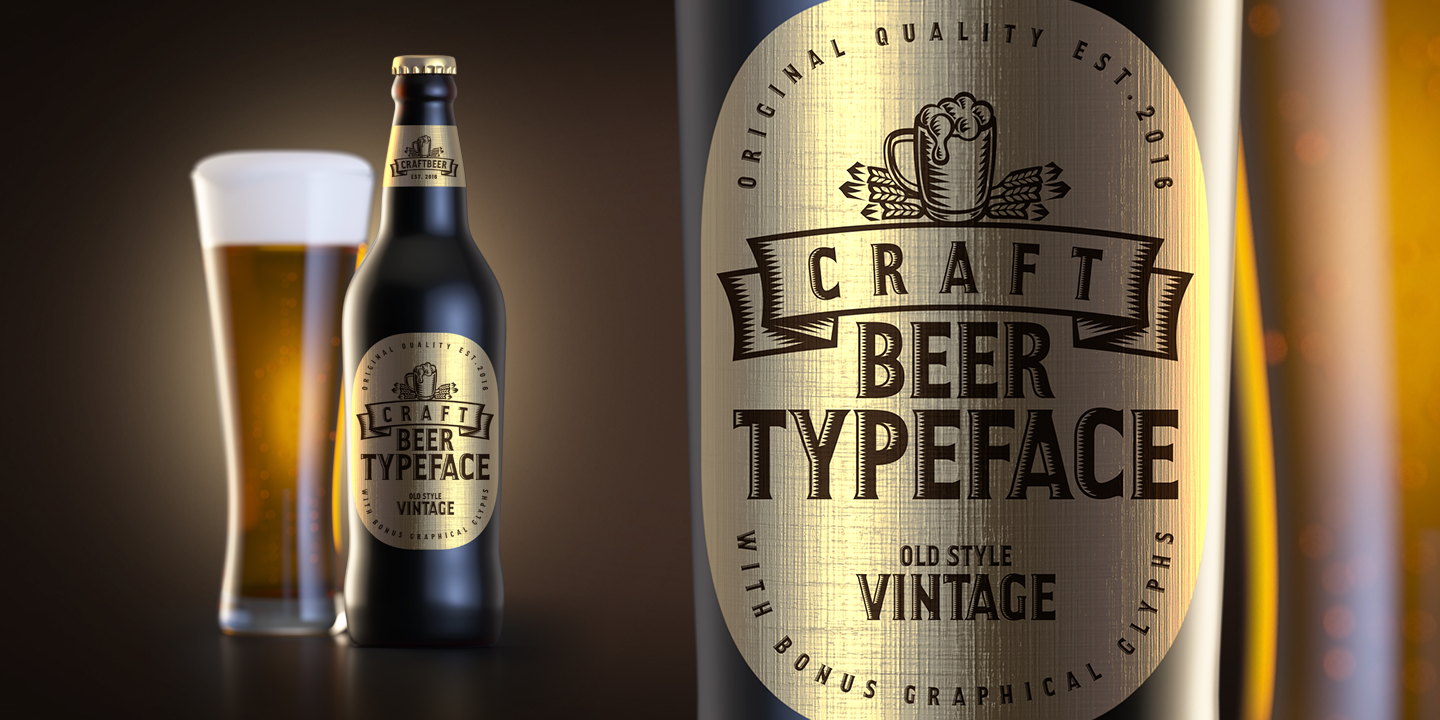
Craft Beer Font is perfect for artisan brewery branding, local taproom signage, craft beer festival graphics, microbrewery packaging labels, beer tasting event materials, homebrew club graphics, artisanal beverage marketing, gastropub menu designs, beer garden decorations, and any flavorful project that celebrates the artisanal passion and community spirit of craft brewing culture and handcrafted beverage excellence.
What makes Craft Beer Font exciting is its artisanal authenticity that captures the passionate craftsmanship of independent brewers and the warm community spirit found in local taprooms where every pint tells a story. This typeface embodies the essence of brewing artistry with robust letterforms that suggest handcrafted quality, local tradition, and the honest dedication of brewers who create unique flavors through skill and creativity. The font's craft character makes it perfect for brands and projects that want to communicate authenticity, community, and the artisanal excellence that defines true craft brewing culture.
The Craft Beer Font family includes multiple weights and brewing variations, featuring light, regular, and bold versions along with rustic textures and alternate characters that enhance the font's handcrafted appeal. This comprehensive collection allows designers to create authentically artisanal typography that maintains the font's signature craft character while providing flexibility for various brewery and beverage design applications.
When exploring authentic brewing typography, Craft Beer Font Free Download represents an exceptional opportunity to work with a typeface that genuinely captures the spirit of craft brewing and artisanal beverage culture. This font demonstrates innovative design thinking by incorporating the honest craftsmanship and community warmth that define both traditional brewing methods and the contemporary craft beer movement's commitment to quality and local identity.
Professional designers appreciate Craft Beer Font for its ability to instantly communicate artisanal quality and local authenticity across various brewing and hospitality platforms. The font's craft character makes it particularly effective for breweries, taprooms, and beverage brands seeking to establish genuine connections with audiences who value handcrafted quality and the community experience of local brewing culture.
The enduring appeal of Craft Beer Font lies in its perfect representation of artisanal brewing and community tradition that continues to thrive as more people seek authentic experiences and locally crafted products. This typeface serves as a celebration of brewing artistry and the passionate communities that form around shared appreciation for handcrafted beverages and local culture.
For creative professionals working with brewing and artisanal beverage brands, Craft Beer Font represents the ultimate typography solution that brings authentic craft brewing character and community warmth to any application, ensuring designs reflect the artisanal passion and local authenticity that define the most beloved craft breweries and handcrafted beverage experiences.